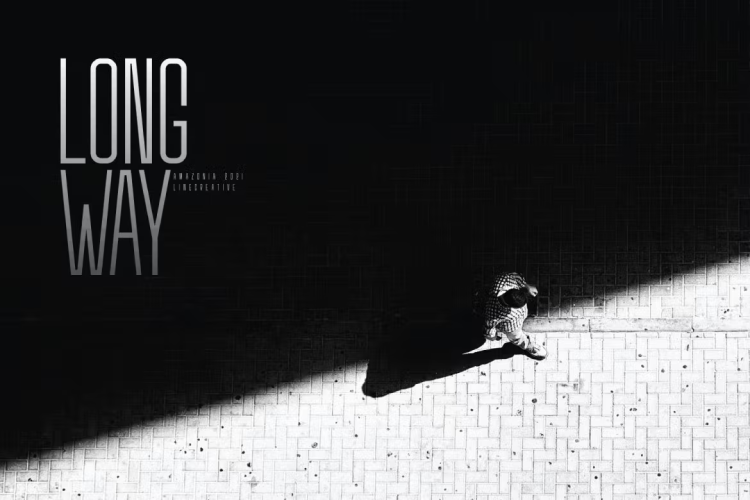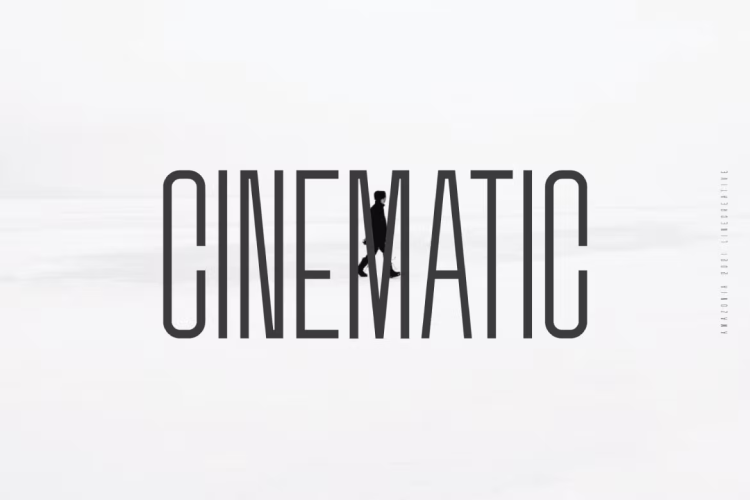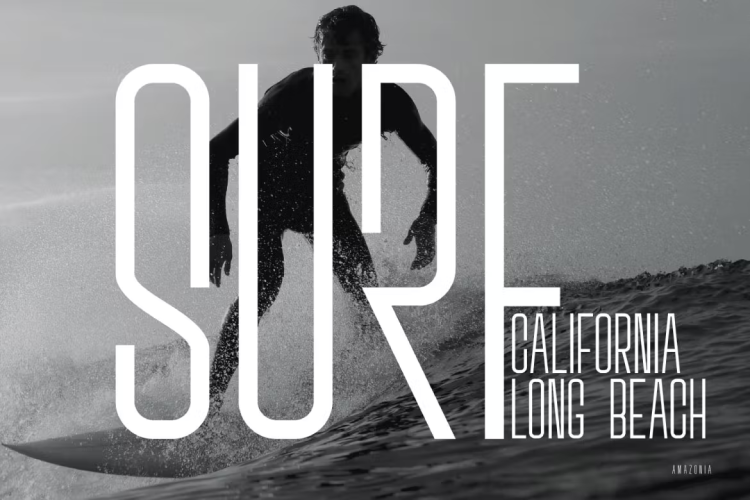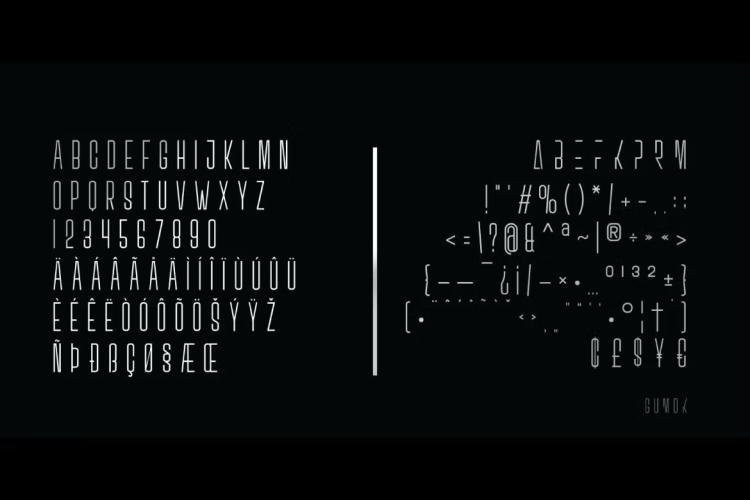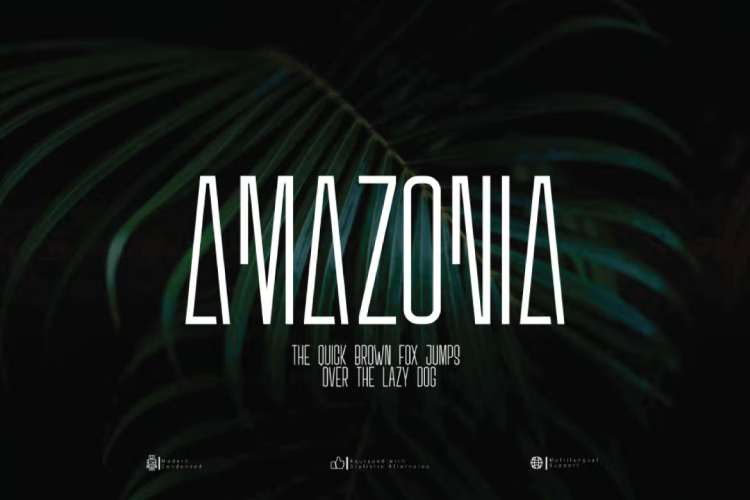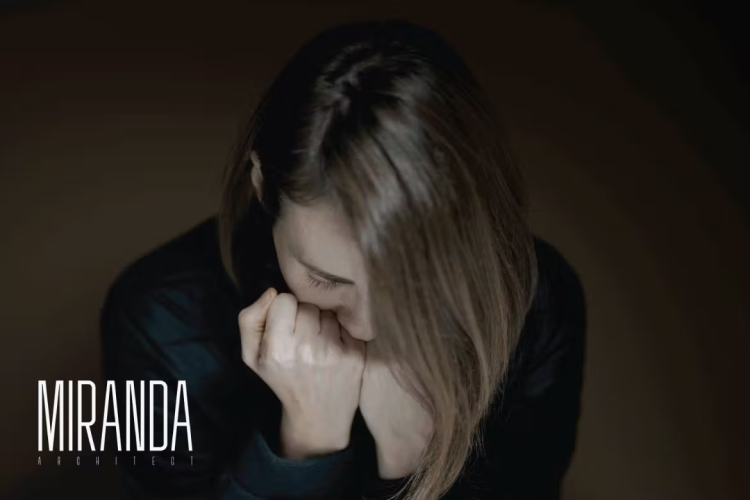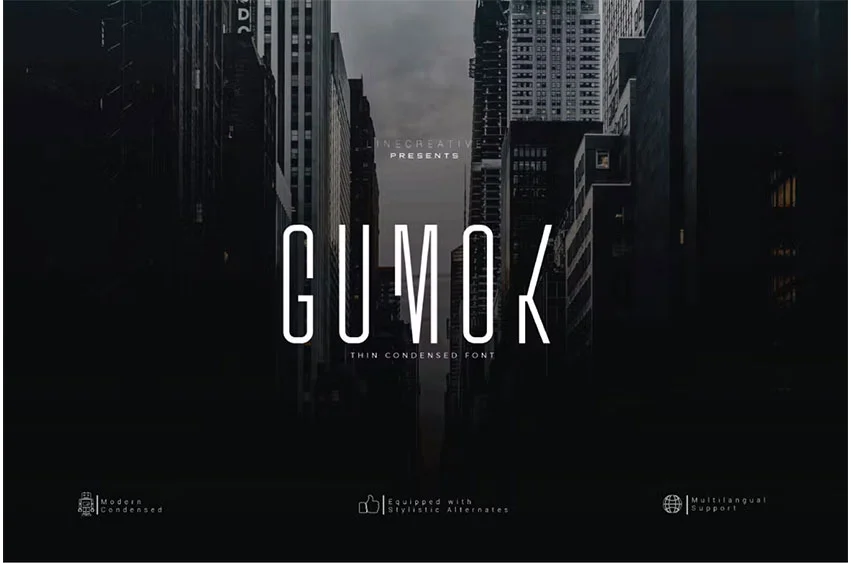
Gumok Font
Gumok Font Ultra Condensed font and Minimalis Character, It’s Perfect for logo, name card, magazine layout, headers, or oven large scale artwork
Where Gumok Font works best
Gumok Font stays legible at small sizes, which makes it a strong choice for navigation, buttons and dashboards in web design and app interfaces.
Clean sans serifs like Gumok Font are the default language of SaaS, fintech and product branding.
What is Gumok Font good for?
Gumok Font is a Sans Serif Fonts typeface tagged Branding, Clean, Condensed, Minimalist. It works well for headlines, logos, posters, social media graphics and branding projects that need a distinctive sans serif fonts look.